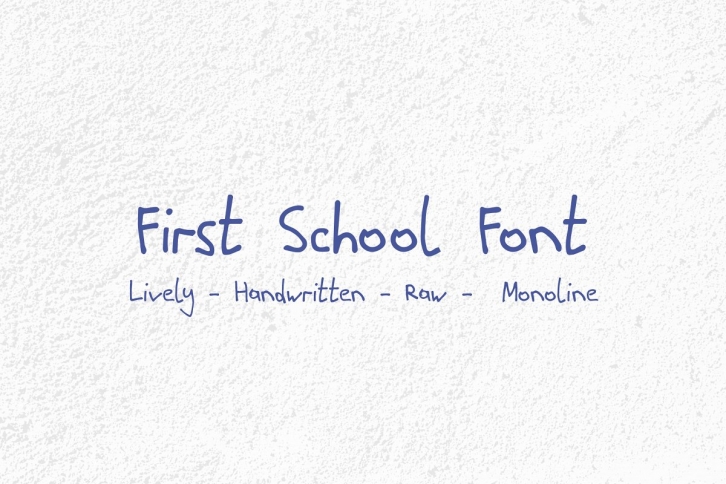
First School is a pretty raw handwritten monoline font, based on the real handwriting! It is natural, wild and lively! Use it as a signature font, for kids products and branding, for school and educational tools, for children books and comics! It is good both as a display font and for text reading!